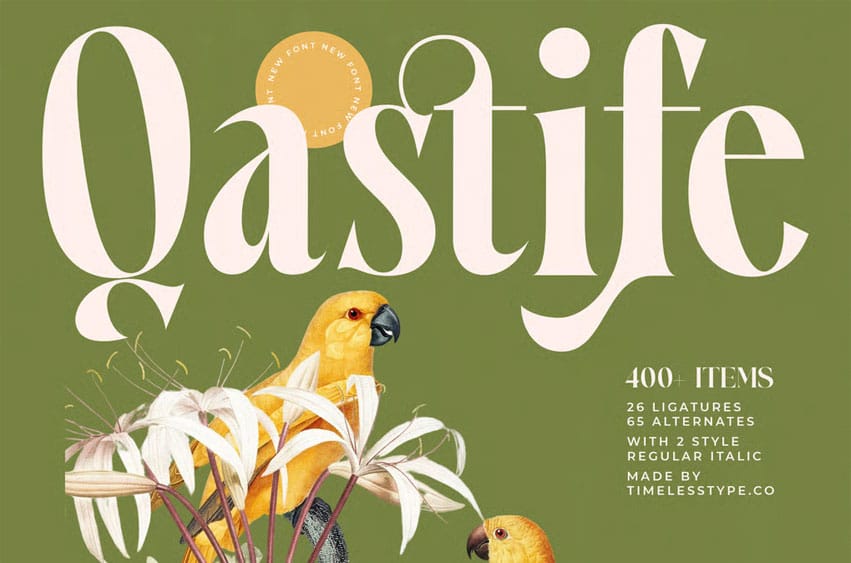
Qastife Font is a modern bold serif font that combines refined elegance with stylish alternates and unique ligatures. Featuring over 400 glyphs and two styles (regular and italic), this typeface is perfect, packaging, posters, invitations, branding, and editorial layouts.
With its contemporary design, Qastife brings luxury and sophistication to both print and digital projects, making it a versatile choice for creative professionals.